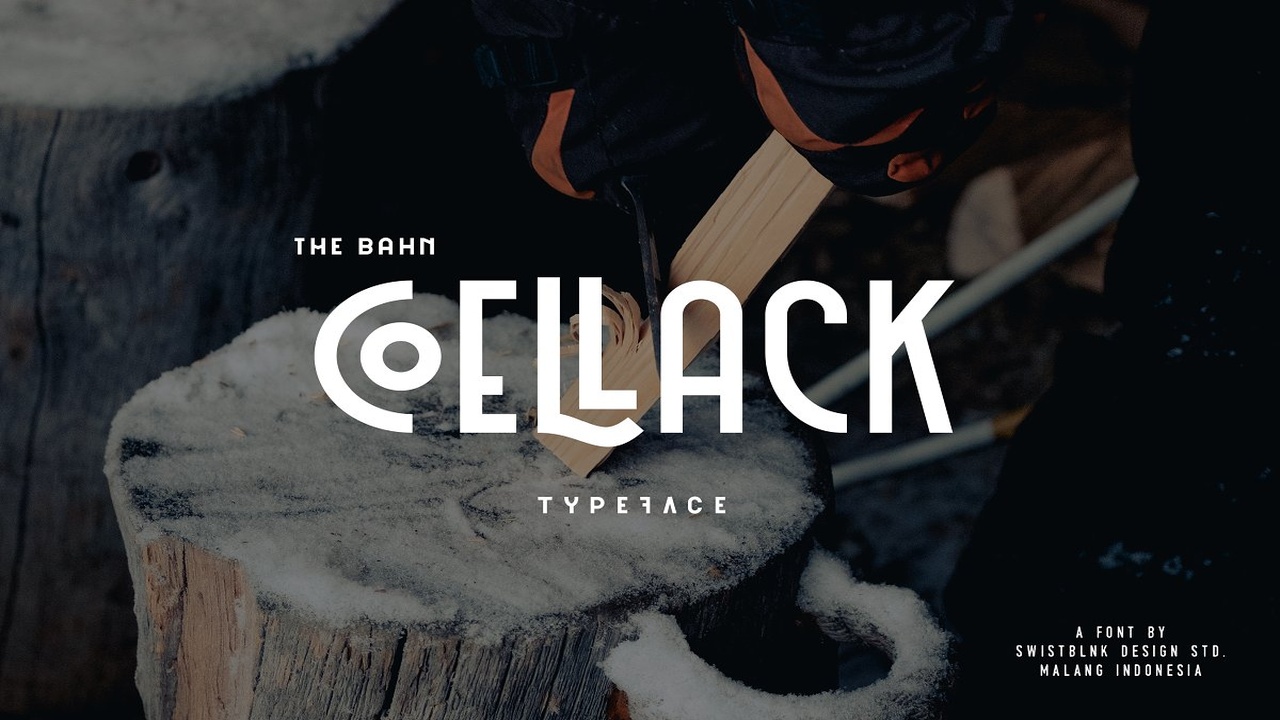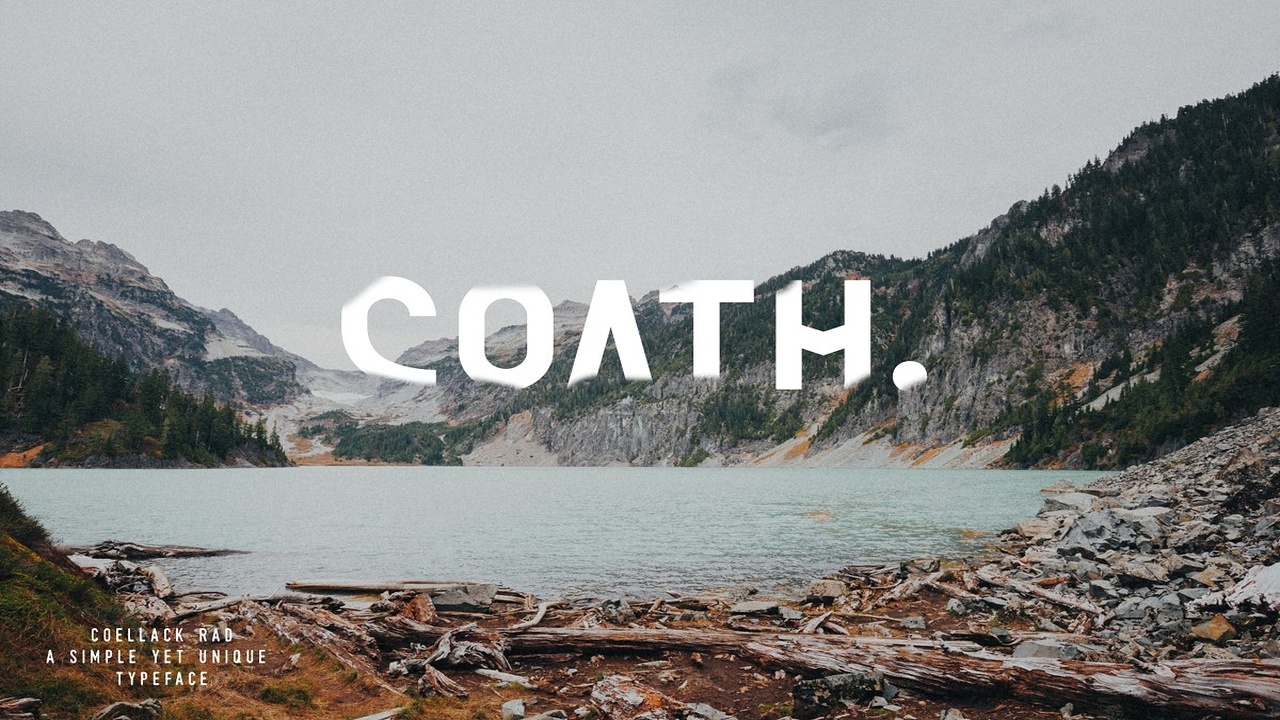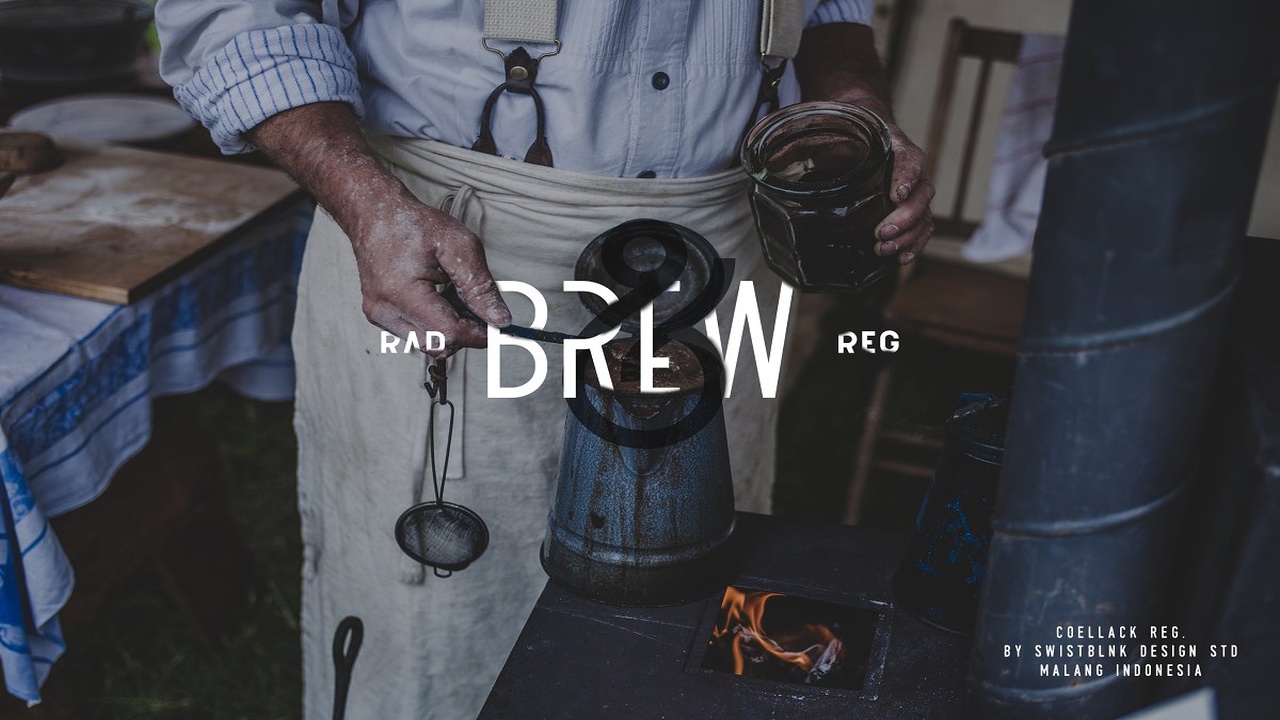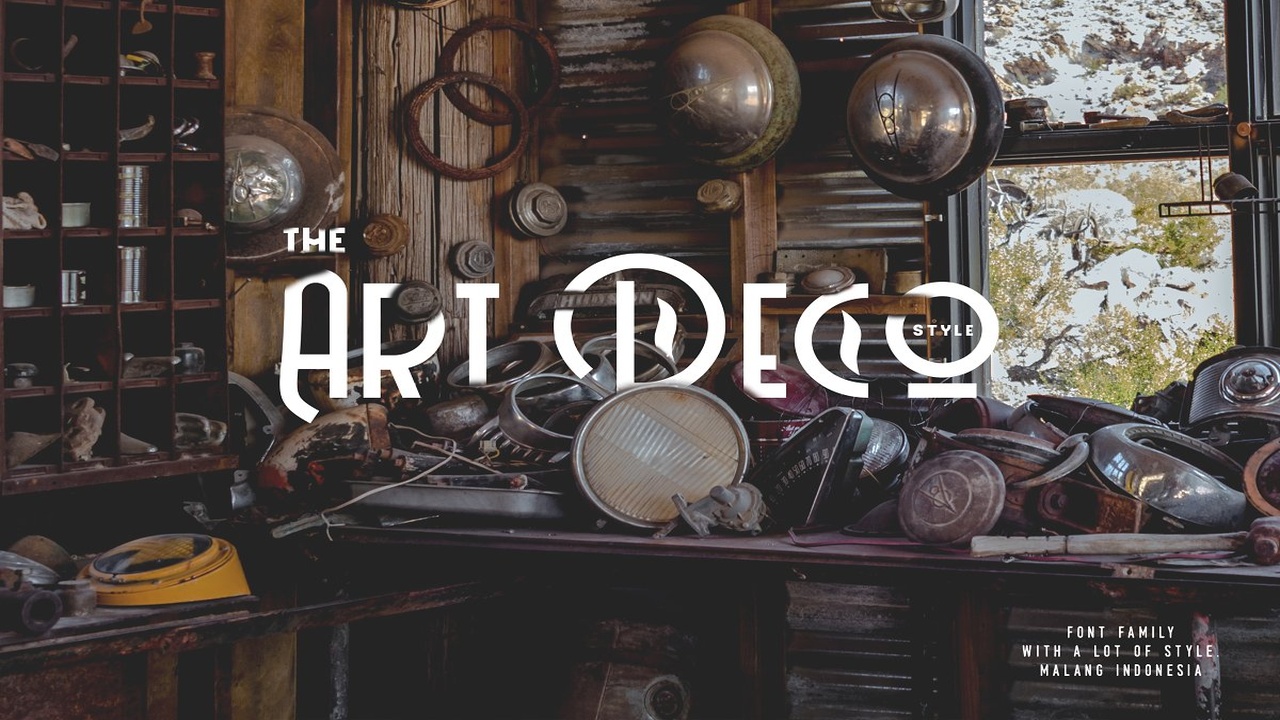
About the Coellack Typeface Font
Coellack is handmade modern vintage display typefaces, which is combining the style of classic typography with an modern handlettering style, you can find more previews on my Instagram here : https://instagram, com/aggaswistblnkFeel free to see All Glyphs in the 5th Preview Image above ( Click to see full image )Coellack Features :UppercaseLowercaseNumerals & Punctuations Accents (Multilingual characters)There are more than 297 glyphs in the font including Stylistic sets, Ligatures etc
OpenType features with Stylistic Alternates, Contextual Alternate in some characters that allows you to mix and match pairs of letters to fit your design, To access the alternate glyphs, you need a program that supports OpenType features such as Adobe Illustrator CS and Adobe Indesign